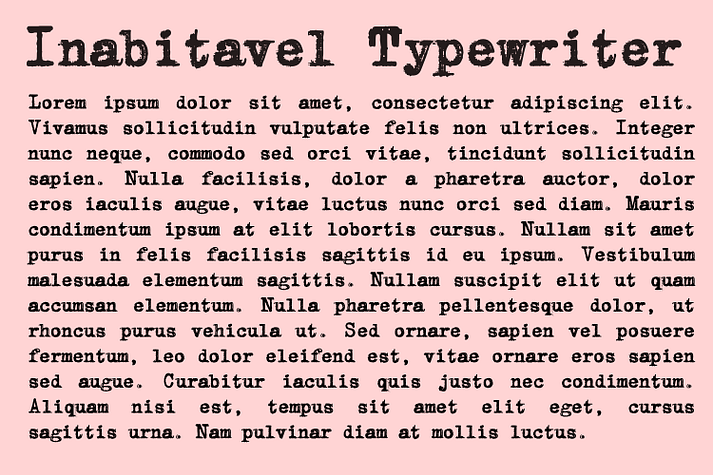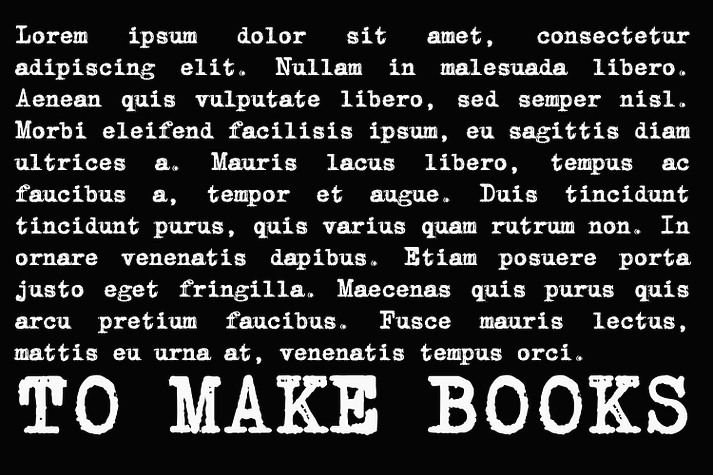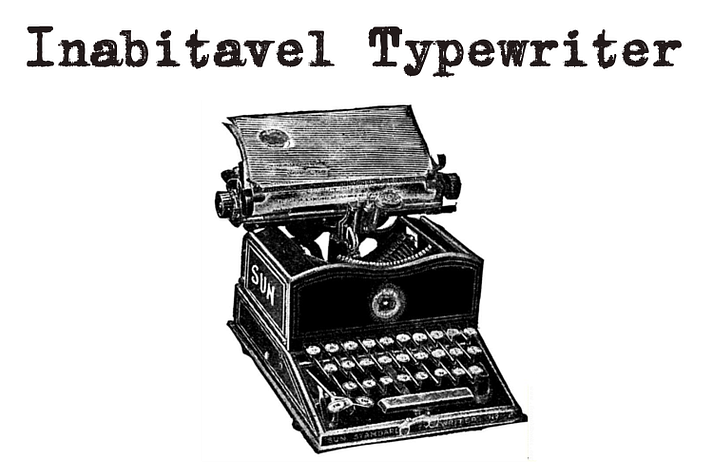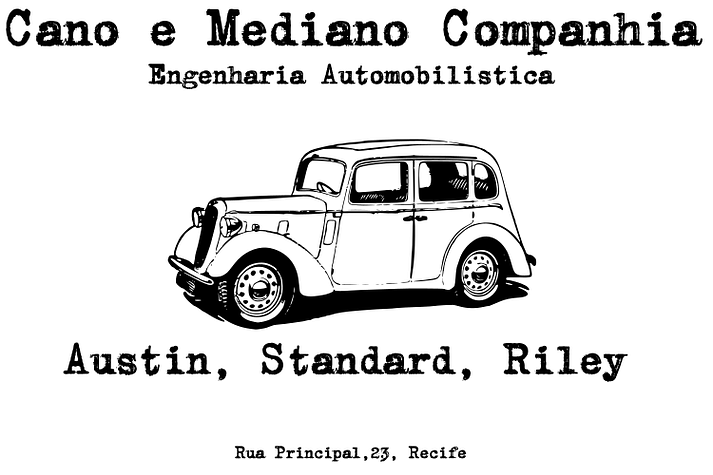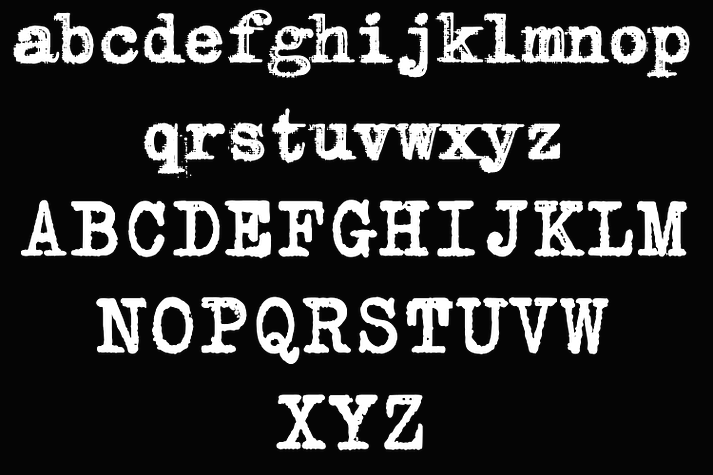
Inabitavel Typewriter
Designed by Paulo W, Inabitavel Typewriter is a display serif and typewriter font family published by Intellecta Design.
The Inabitavel Typewriter is a unique typewriter font design, great for mimicking the effect of typewriting older machines. Has an erased and much-inked style, good for exquisite designs.